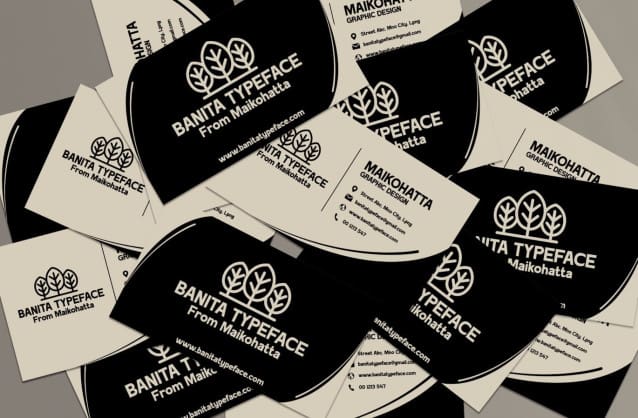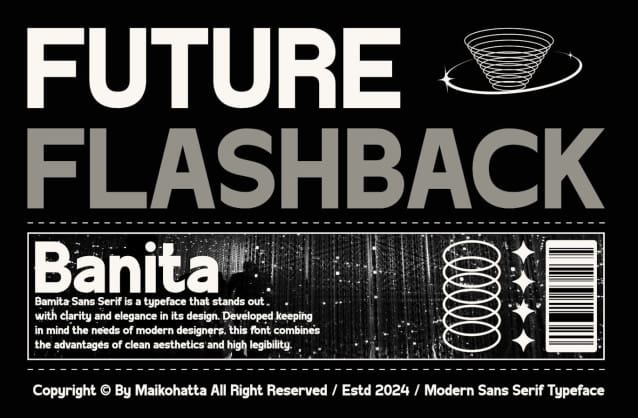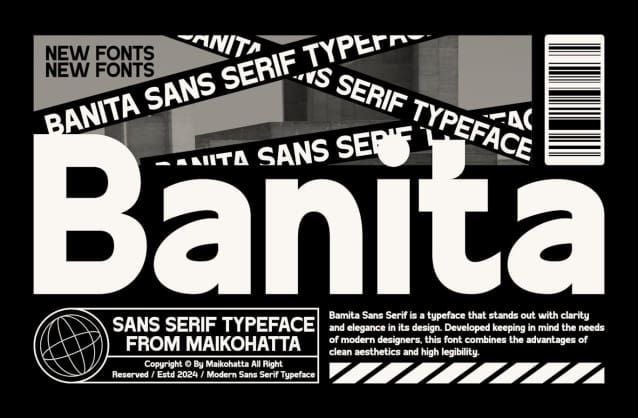
Banita Font
Banita Font – Sans Serif Typeface. This font is a very flexible choice and can be used in various design contexts. Its ability to provide a clean, professional and contemporary look, its simplicity and visual appeal make it an ideal font for use in the world of graphic design and modern typography